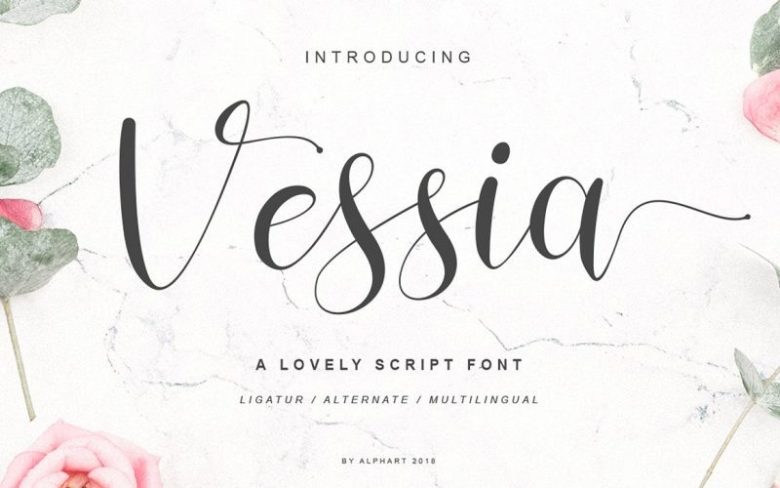
Vessia Script Font
Vessia a lovely script font – a new modern & fresh script with a handwritten and script style make this font looks cute, elegant, stylish and perfect for any awesome projects that need lettering taste.
Vessia would perfect for watermark, social media posts, advertisements, logos & branding, invitation, product designs, label, stationery, wedding designs, product packaging, special events or anything that need lettering taste.